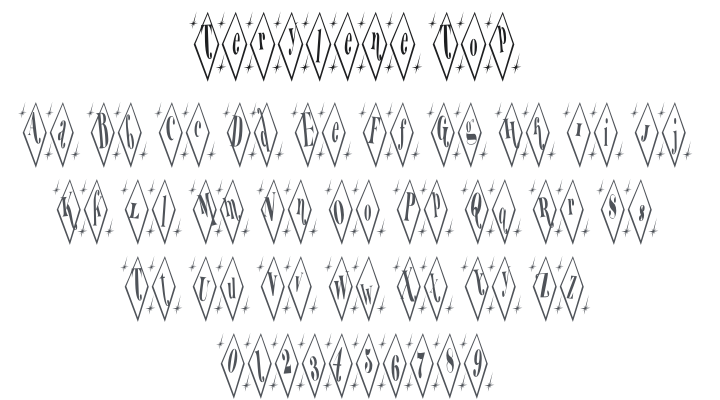
Terylene Top Font
About Terylene Top
Terylene Top is a delightful retro casino display typeface where every letter sits inside its own diamond-shaped playing card frame, surrounded by decorative four-pointed stars — like the signage of a 1950s Las Vegas lounge. The elegant serif letterforms inside each diamond add a touch of old-world class. Perfect for casino branding, poker night invitations, vintage Vegas aesthetics, cocktail bar signage, and any design needing mid-century gambling glamour.